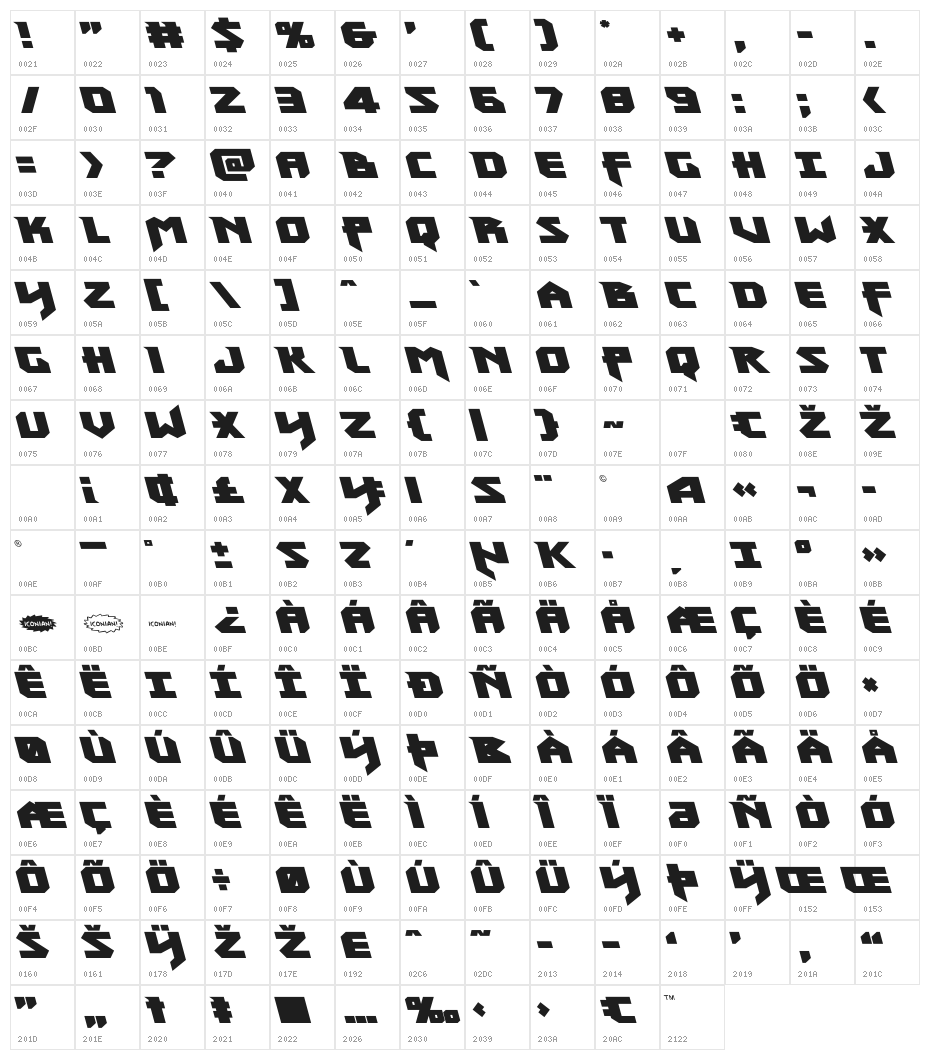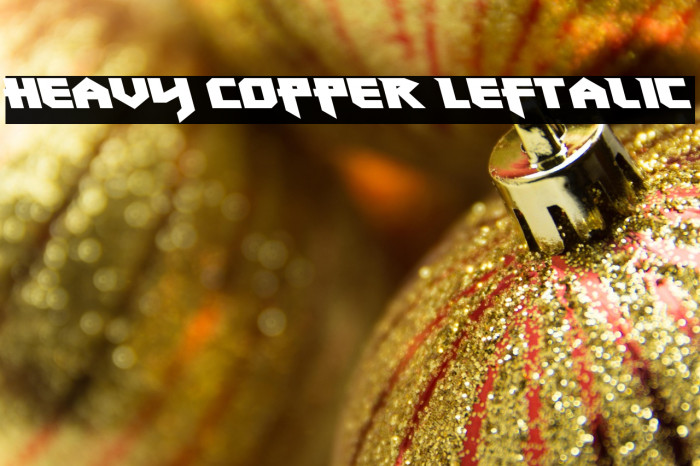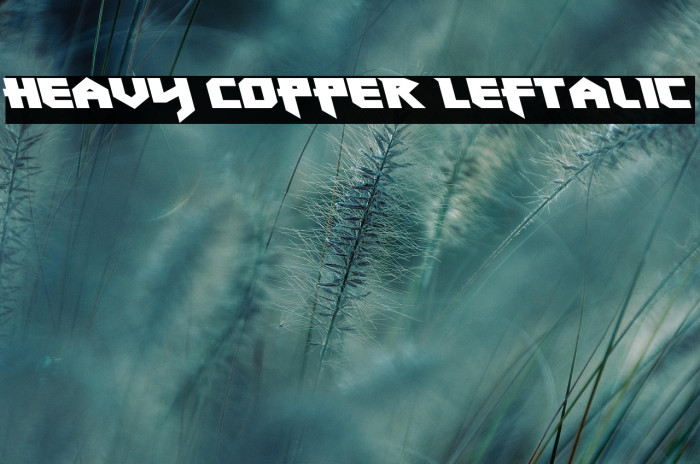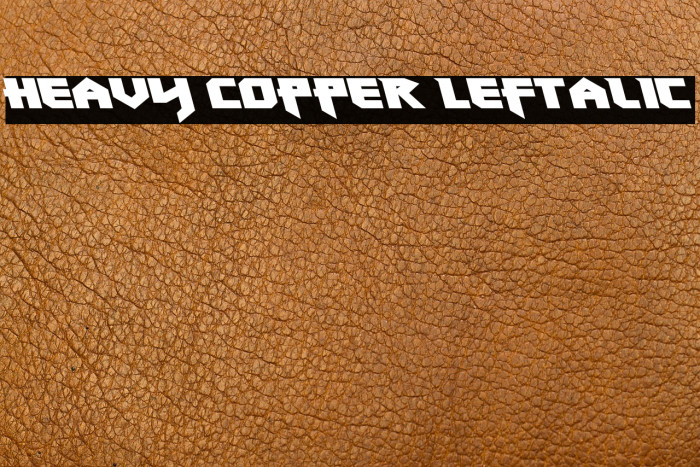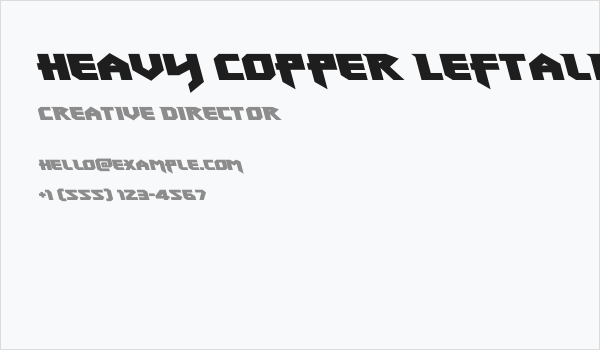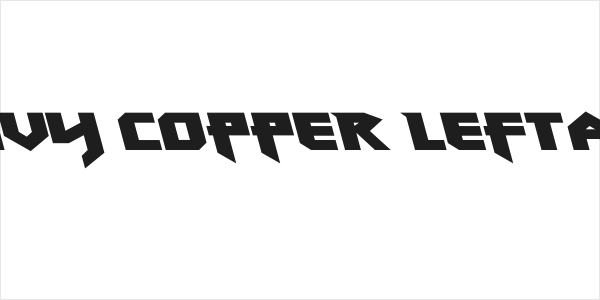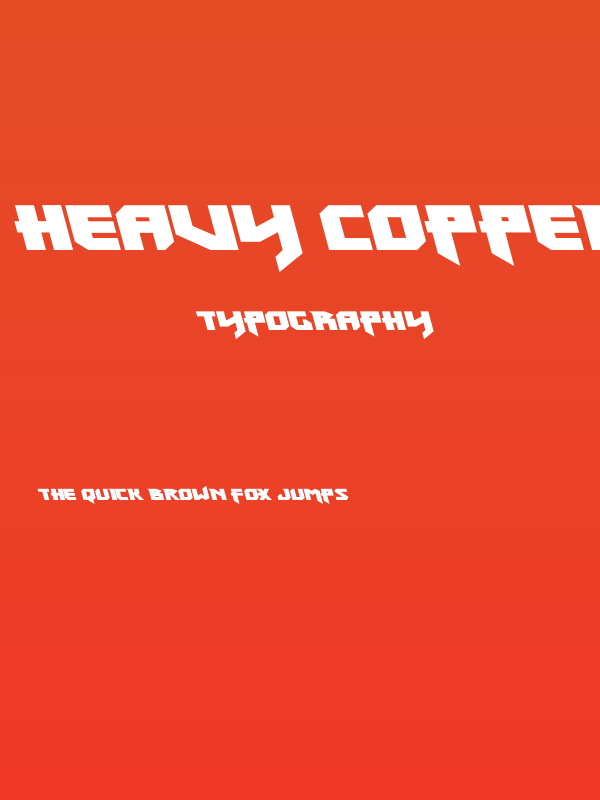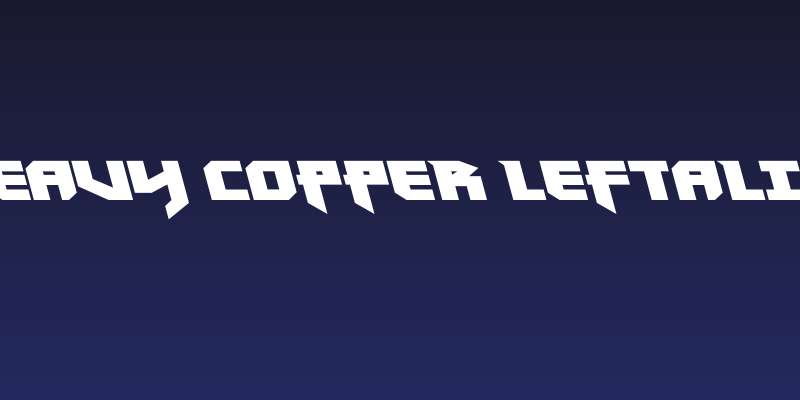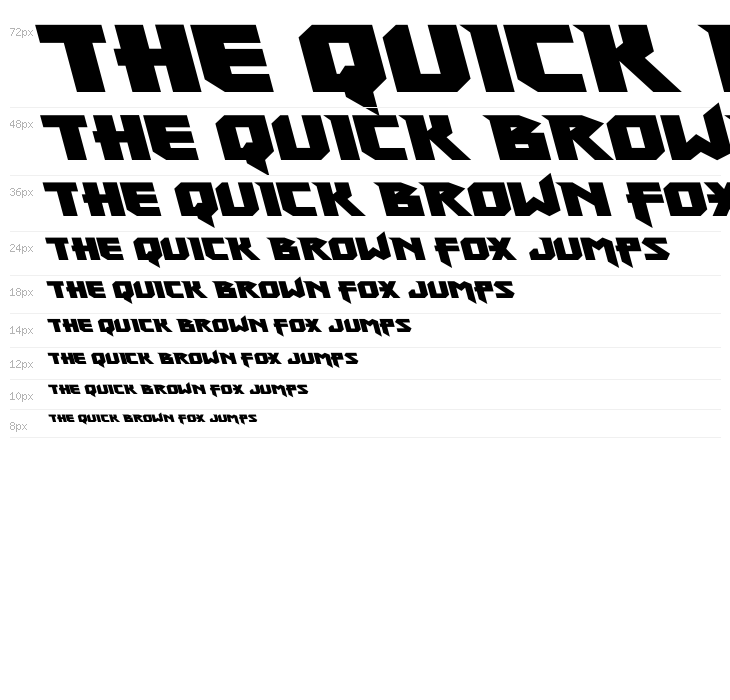
Heavy Copper Leftalic Font
Heavy Copper Leftalic Description
This font features a bold and angular design with a distinct geometric style. The characters are sharply cut, giving a sense of strength and modernity. The uppercase and lowercase letters maintain a consistent weight, with exaggerated angles and edges that create a dynamic and aggressive appearance. The numbers and special characters follow the same stylistic approach, ensuring uniformity across the typeface. The overall look is striking and impactful, making it suitable for attention-grabbing designs.
| Proposed Projects | Ideal for branding, posters, video game titles, and any project requiring a bold, modern aesthetic. |